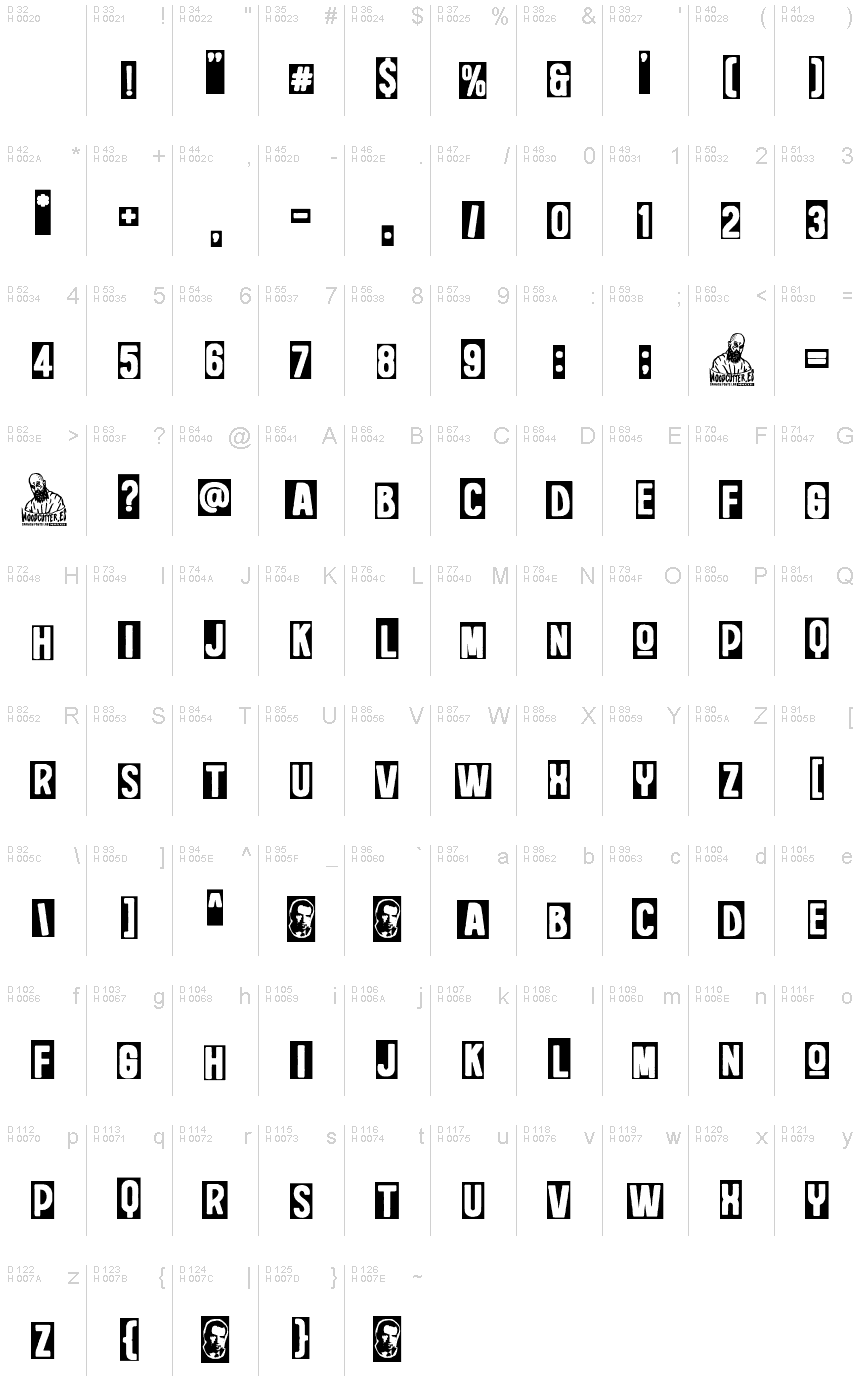
President Nixon
The President Nixon font, designed by Woodcutter, is a bold and condensed display typeface with a touch of negativity.
Its strong and compact design makes it perfect for projects that require impactful headlines or attention-grabbing titles. Whether you're designing political campaign materials, edgy album covers, or rebellious fashion editorials, President Nixon will leave a lasting impression. Its unique style adds a hint of controversy to any project, making it ideal for those looking to stand out from the crowd.
Let your creativity shine with the President Nixon font.
President Nixon.